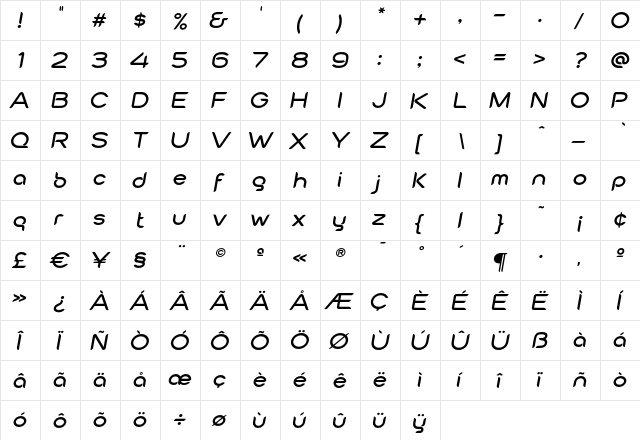
Cabourg OT BoldOblique Font Preview
Cabourg OT BoldOblique
Cabourg OT BoldOblique Font Details
| Style | BoldOblique |
| Foundry | Gustavo Piqueira |
| Designer | Gustavo Piqueira |
Design Context for Cabourg OT Typeface
Cabourg OT is a composed and adaptable typeface that performs quietly and consistently across a wide range of design contexts. The dynamic lean of this cut emphasises speed and emphasis in any layout. The heavy weight commands attention and anchors typographic hierarchies.
Pro Tip: Use Cabourg OT for emphasis, pull quotes, and subheadings where its slanted energy can add rhythm to the layout.